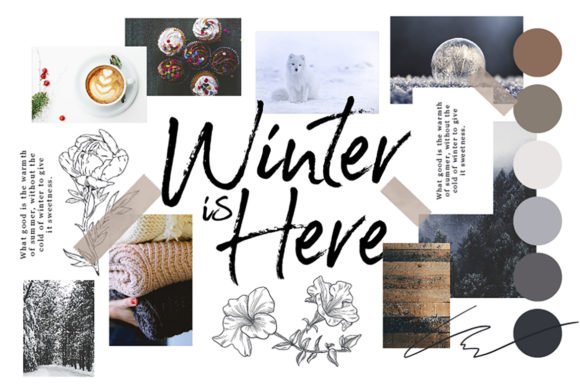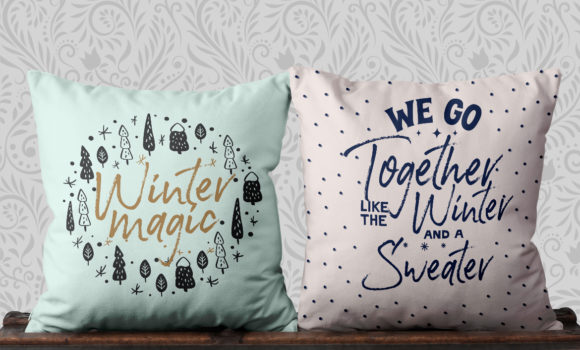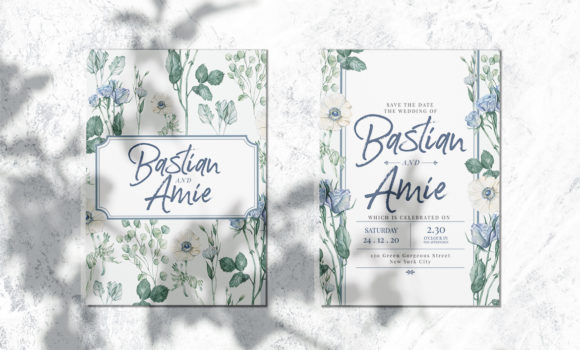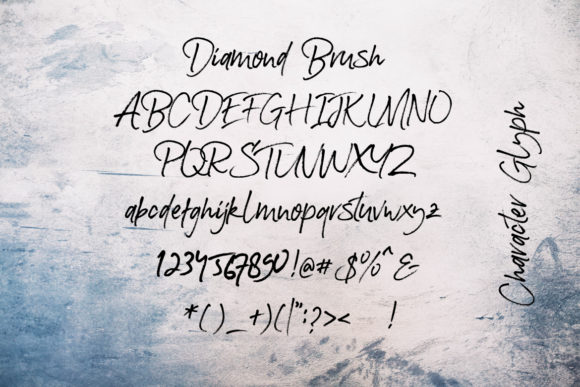
The Sparkle of Diamonds Font: A Designer’s New Best Friend
I still remember the design project that led me to fall in love with Diamonds Font. I was working on a whimsical branding project for a new boutique, and I was struggling to find the perfect font that would capture the essence of the brand. The client wanted something sweet, fun, and elegant, but I was coming up blank. That’s when I stumbled upon Diamonds Font, and it was like a spark of inspiration hit me ✨. In this article, I’ll share my honest review of Diamonds Font, a practical guide on how to use it, and some helpful tips and tricks to get the most out of this beautiful font.
My Honest Review of Diamonds Font
- ✨ Sweet and Fun Handwritten Style: Diamonds Font has an authentic, handwritten vibe that adds a touch of warmth and personality to any design project.
- ✅ Elegant and Versatile: This font is perfect for a wide range of design projects, from branding and packaging to invitations and social media graphics.
- 💫 OpenType Features: Diamonds Font comes with a range of OpenType features, including glyphs and stylistic alternates, that allow for endless creativity and customization.
While Diamonds Font is an amazing font, there are a few quirks to be aware of ⚠️:
- 🤔 Limited Use in Small Sizes: Like many handwritten fonts, Diamonds Font can be a bit tricky to read in small sizes. It’s best used in headlines, titles, or larger text.
- ⚠️ Some Characters May Not be Suitable for Body Text: While Diamonds Font is perfect for headings and titles, it may not be the best choice for body text. Some characters may appear too ornate or decorative for longer blocks of text.
The Story Behind Diamonds Font
Diamonds Font was designed by a talented type designer who wanted to create a font that would capture the essence of sweet and fun handwritten styles. Inspired by vintage stationery, elegant calligraphy, and modern digital design, Diamonds Font was born. With its elegant lines, sweet swashes, and lively personality, Diamonds Font is perfect for designers, crafters, and creative hobbyists who want to add a touch of sparkle to their design projects.
Q: Is Diamonds Font suitable for body text?
A: While Diamonds Font is perfect for headings and titles, it may not be the best choice for body text. Some characters may appear too ornate or decorative for longer blocks of text.
Q: Does Diamonds Font come with OpenType features?
A: Yes, Diamonds Font comes with a range of OpenType features, including glyphs and stylistic alternates, that allow for endless creativity and customization.